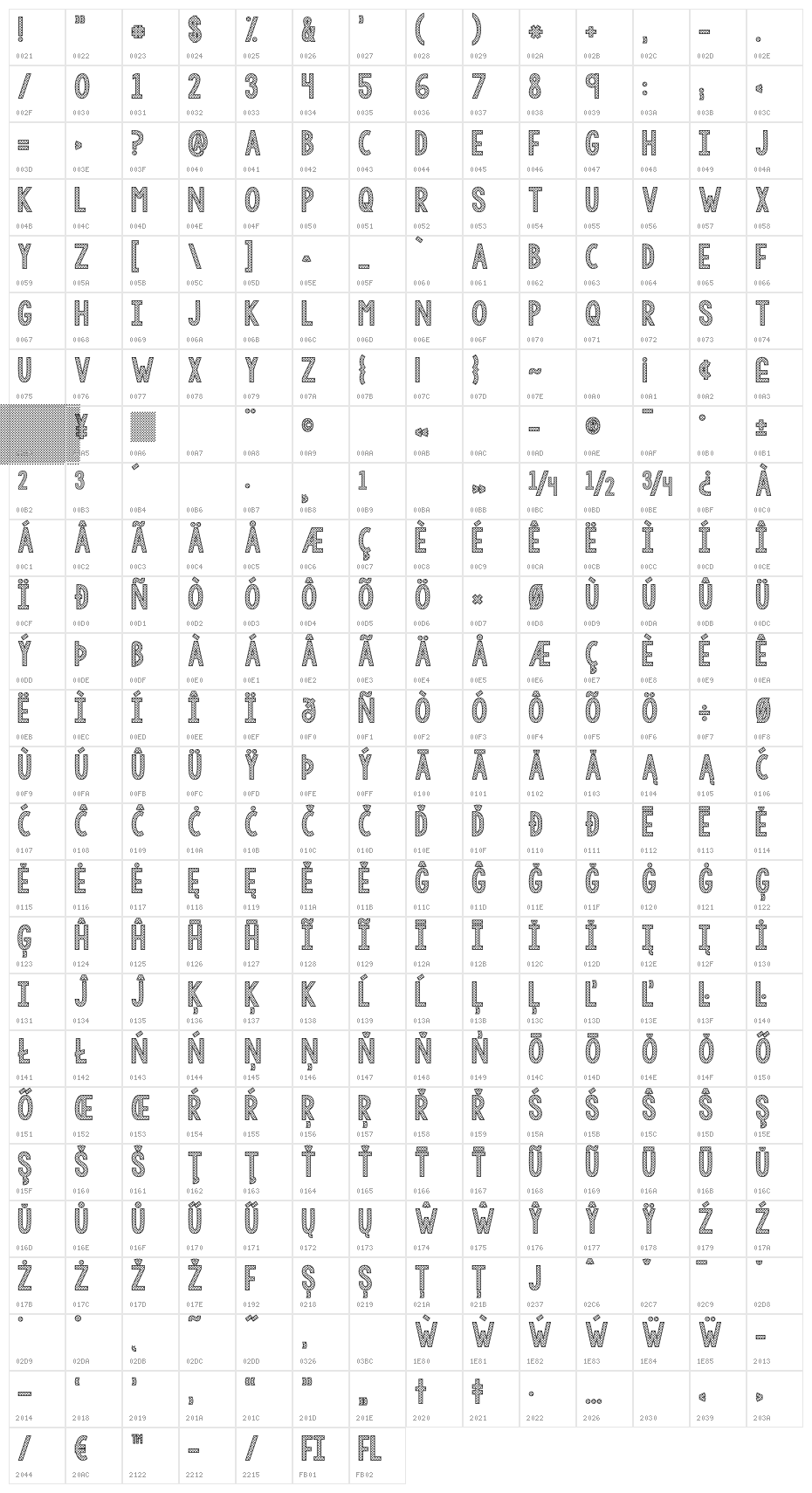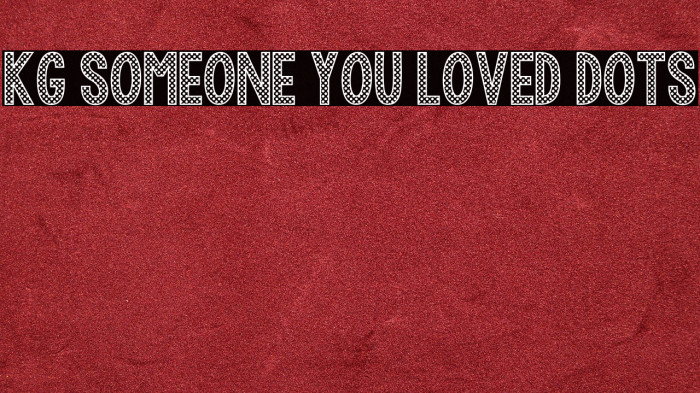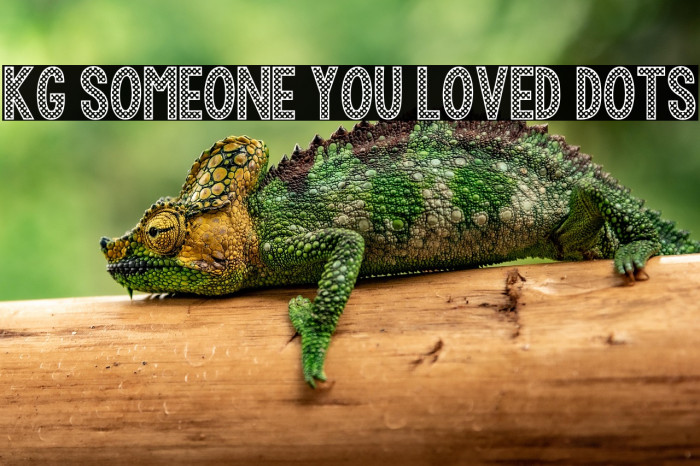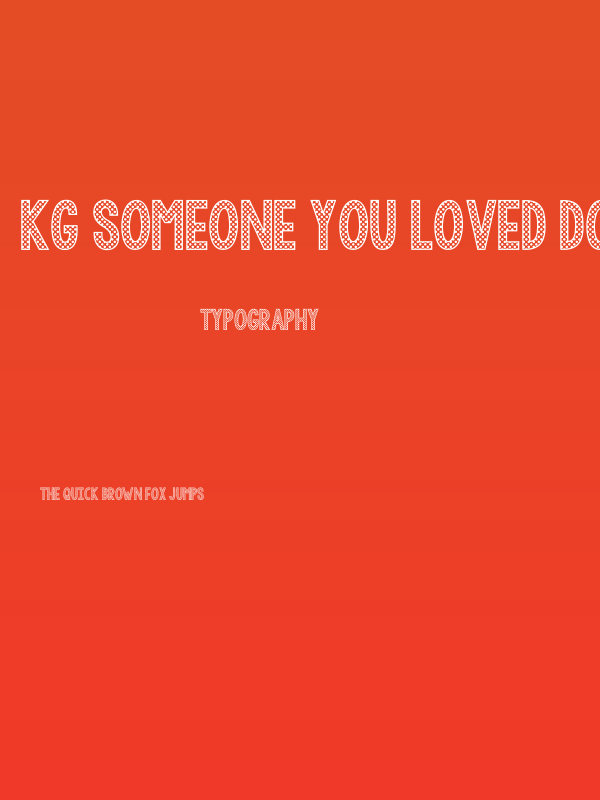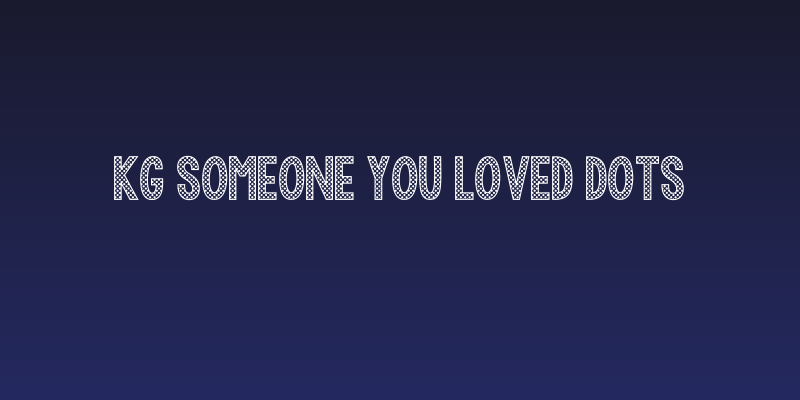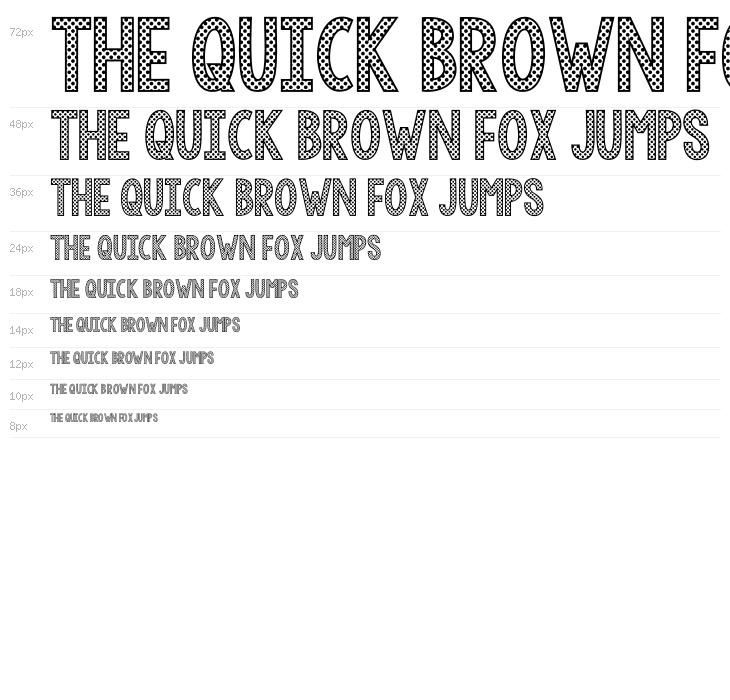
KG Someone You Loved Dots Font
KG Someone You Loved Dots Description
This font features a playful and eye-catching design with a bold outline and a dotted pattern filling each character. The uppercase and lowercase letters, as well as numbers and special characters, maintain a consistent style that is both decorative and modern. The dots within the characters add a unique texture, making it ideal for projects that require a fun and engaging visual element. The font's structure is clear and legible, ensuring readability while still offering a distinctive aesthetic. This makes it suitable for creative projects where a touch of whimsy is desired.